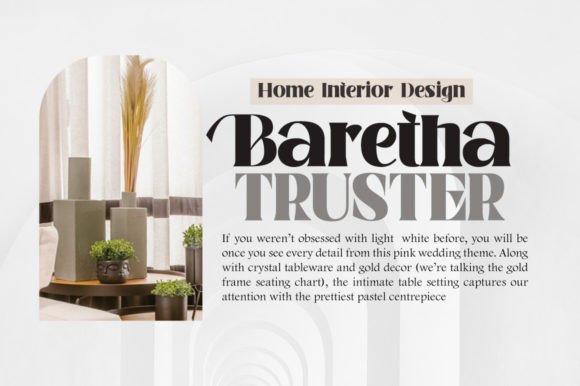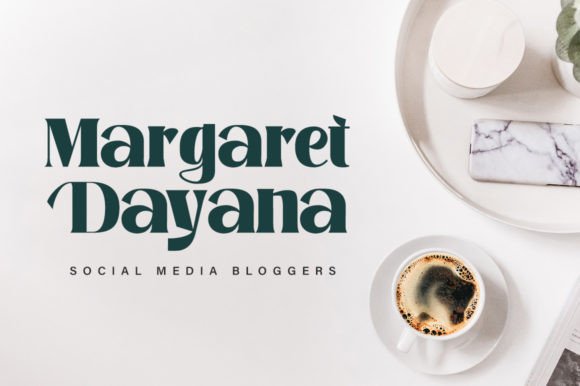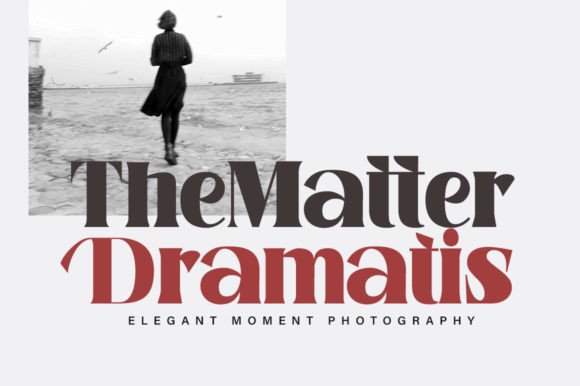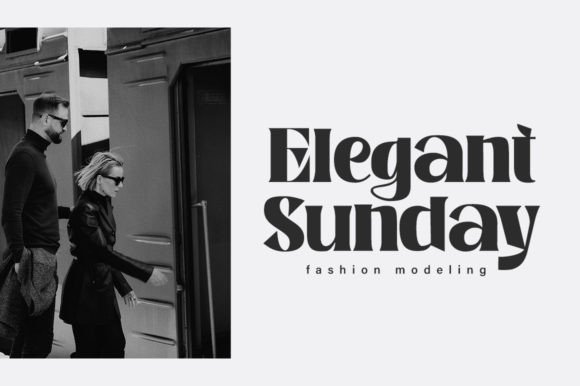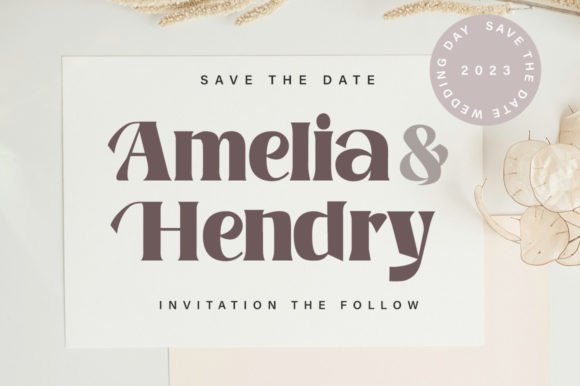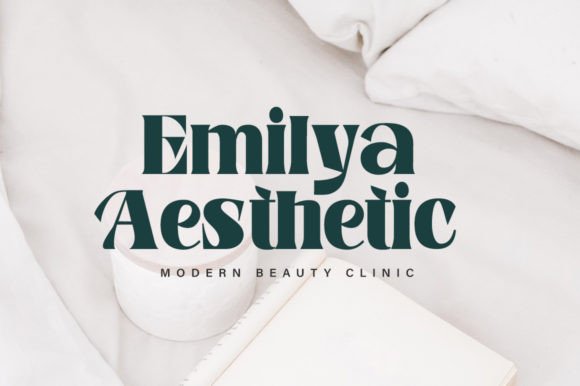
Introducing Dotine Font: Elevate Your Brand with Elegance and Style
In the world of typography, a font can make all the difference in how your message is perceived. For designers, crafters, and businesses looking to leave a lasting impression, the Dotine font offers a sophisticated solution. This beautiful serif font is designed to engage your audience, making your promotions and projects stand out with its unique charm and modernity.
What Makes Dotine Font Special?
Dotine is not just another serif font; it’s a versatile typeface that brings a touch of elegance and style to any project. One of its standout features is the inclusion of different ligature characters. Ligatures are typographic elements that combine two or more letters into a single glyph, enhancing the visual flow of text and making it more aesthetically pleasing. With Dotine, you can add a level of sophistication to your titles, logos, business cards, and more, ensuring your brand stands out.
Applications of Dotine Font
The versatility of Dotine makes it suitable for a wide range of applications. Here are some ways you can utilize this stunning font:
- Title and Logo Design: Create a memorable first impression with a title or logo that exudes elegance and professionalism.
- Business Cards: Elevate your business card design with a font that communicates sophistication and attention to detail.
- Printed Quotes: Add a touch of class to your inspirational or promotional quotes, making them more impactful.
- Invitations and Cards: Whether it’s a wedding invitation, a birthday card, or a corporate event invite, Dotine adds a layer of refinement.
- Packaging: Stand out on store shelves with packaging that boasts a modern yet timeless look.
- Website and Social Media Branding: Consistency in branding is key. Use Dotine to create a uniform brand image across your digital platforms.
Customizing Dotine for Your Needs
One of the advantages of the Dotine font is its flexibility. While it comes with a standard set of characters and ligatures, you can often customize it further to fit your specific needs. Many font packages offer additional features such as:
- Variable Font Weights: From light to bold, adjust the weight to match your design’s hierarchy and aesthetic.
- Stylistic Alternates: Some fonts include alternate characters that can be used to add more variety to your text.
- Language Support: Ensure your content is accessible to a global audience with fonts that support multiple languages.
Why Choose Dotine Font?
Choosing Dotine for your typography needs comes with several benefits:
- Unique Aesthetic: Its distinctive serif design and ligatures offer a fresh alternative to more common fonts.
- High Readability: Despite its elegant design, Dotine maintains high readability, making it suitable for both headings and body text.
- Time-Saving: With its comprehensive set of characters and ligatures, you can create professional-looking materials quickly.
Dotine font is a powerful tool for anyone looking to elevate their brand, promotions, and projects. Its combination of elegance, versatility, and modernity makes it an excellent choice for designers and crafters. By incorporating Dotine into your typography, you’re not just choosing a font; you’re adopting a visual identity that communicates quality, sophistication, and attention to detail. Whether you’re working on a business project, a personal craft, or your brand’s online presence, Dotine is sure to make a lasting impression.